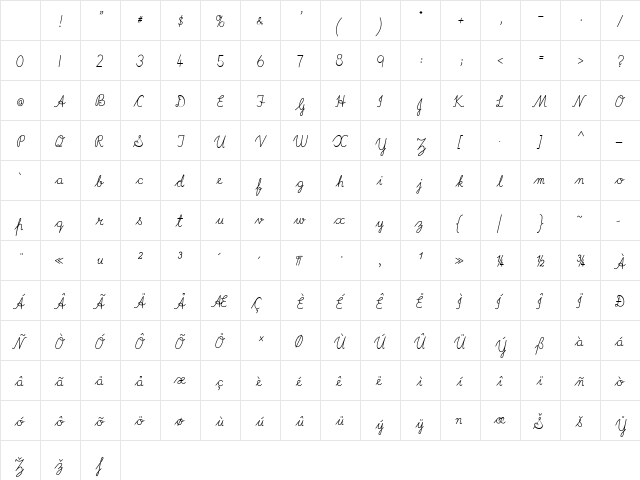
Imrans School 2 Regular Free Font
Imrans School 2 Regular
Foundry: Peter Wiegel
Designer: Peter Wiegel
Design Context for Imrans School 2
Imrans School 2 is a composed and adaptable typeface that performs quietly and consistently across a wide range of design contexts.
Who designed the Imrans School 2 Regular font?